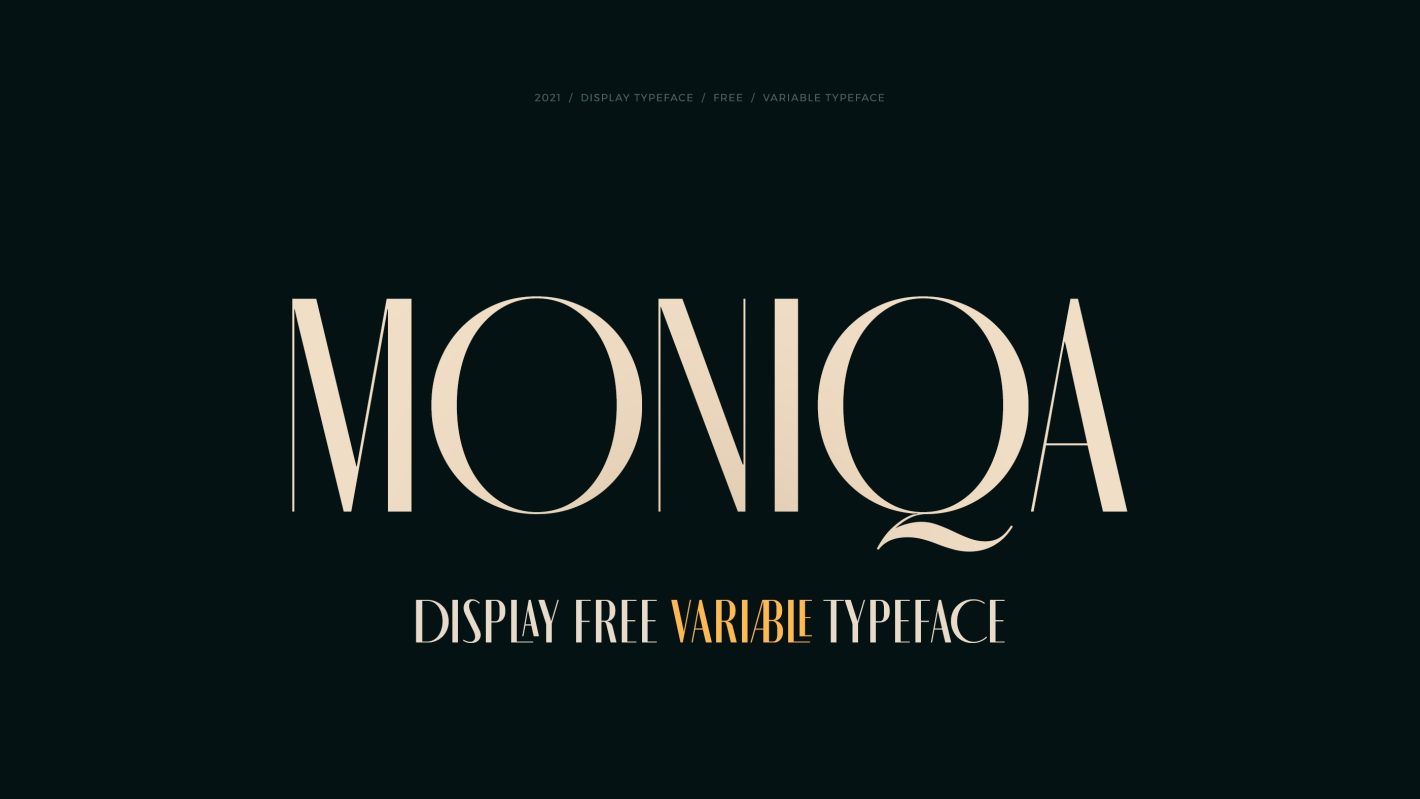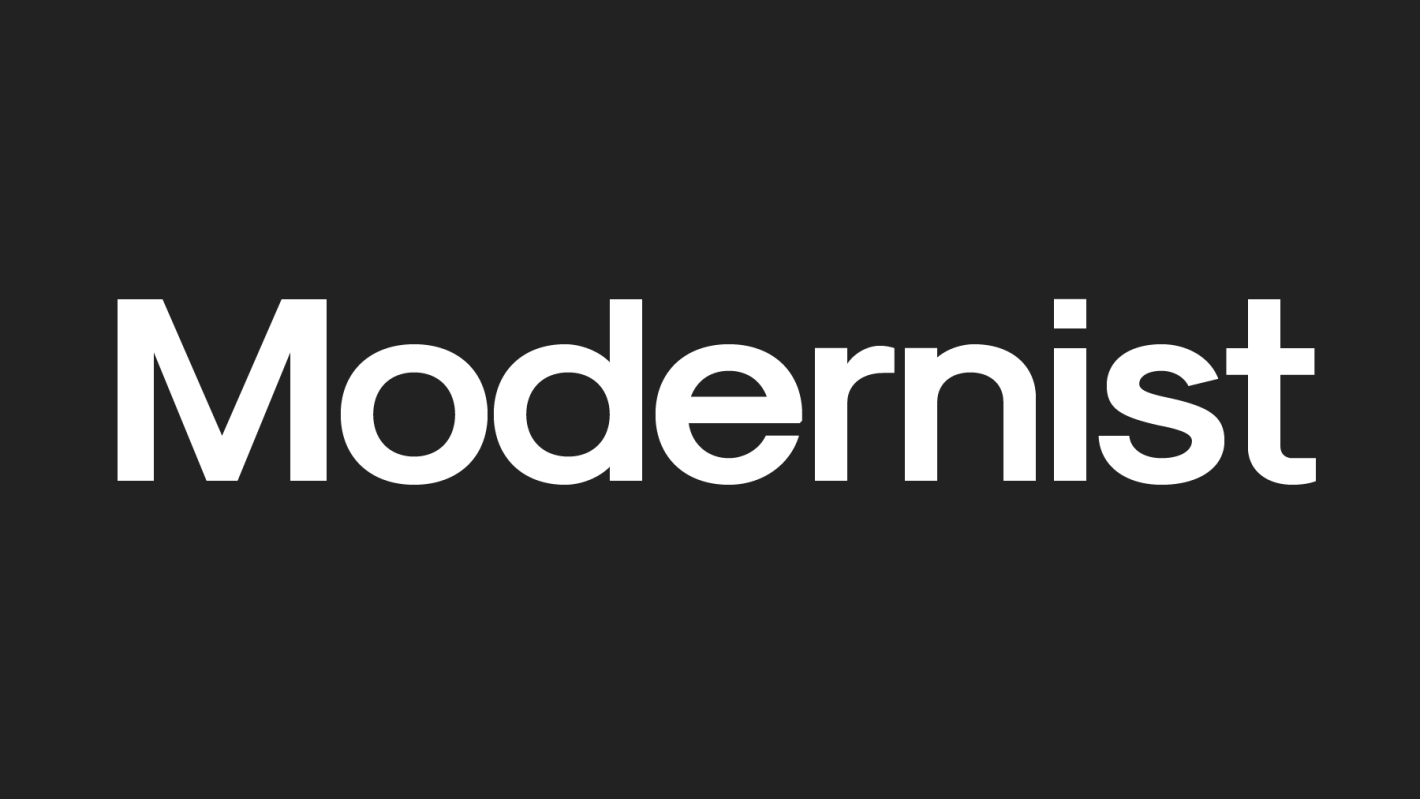
60 best free fonts for designers in 2025
Discover the 60 best free fonts for graphic designers and website designers in 2025, carefully curated by Reeds to elevate your creative projects.
Geist
Geist truly represents the coding and design spirit within Vercel's creative community.
SK-Modernist
Modernist is designed for digital mediums and sidesteps complicated forms for a minimalist, clean look.
Auge
Auge is a wedged serif font family inspired by small insects and the micro world.
Humane V2.0 Variable
Humane V2.0 is a variable font with a striking, playful style.
Panagram Sans Rounded
Panagram Sans Rounded is a fun and playful typeface, inspired by some of the greatest geometric typefaces.
Harmond Display
Harmond Display is a fresh & modern serif, combining readability with style.
Project Blackbird
Project Blackbird is a grotesk font that can provide unique glyphs and shapes to your work.
Elanor
Elanor is a fresh & modern serif, with a retro style and experimental touches.
Stanley
Stanley is an elegant display font that combines rounded and rectangular forms.
São Torpes
São Torpes is a bold display font with a retro touch.
Flaviotte
Flaviotte combines high contrast and sharp serifs, giving an elegant feel.
Neutral Face
Neutral Face is a contemporary typeface inspired by Swiss-style sans serifs.
Calfine
Calfine is a bold, strong display font that stands out from the crowd.
Monica Variable
Moniqa is a variable font with both Latin and Cyrillic scripts.